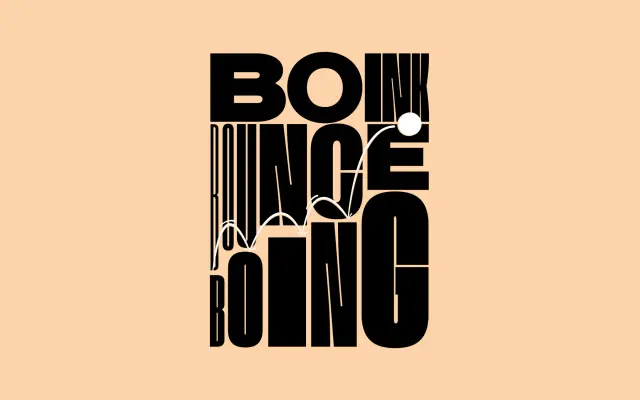
F37 Elastica Sans
F37 Foundry · Ryan Williamson, Rick Banks · 2025
F37 Elastica Sans specimen from F37 Foundry
An industrial grotesque sans with humanist warmth, drawn across eight widths from Expanded down to Ultra Compressed to flex from headline to micro masthead.
An industrial grotesque sans by Ryan Williamson and Rick Banks, designed as half of a sans and serif pair sharing the same underlying skeleton. Single weight across eight widths, from airy Expanded through Regular and Narrow to a migraine-inducing Ultra Compressed. Low stroke contrast and tight apertures suit bold, graphic uses; the expanded width shouts, the regular sits sensibly, and the narrower widths handle punchy headlines in tight measures. Small caps, ligatures and stylistic alternates included. Pairs interchangeably with F37 Elastica Serif.
F37 describes Elastica Sans as an industrial grotesque with humanist features, drawn as half of a sans and serif pair on a shared skeleton, with eight widths from Expanded to Ultra Compressed and OpenType features including small caps, ligatures and stylistic alternates.